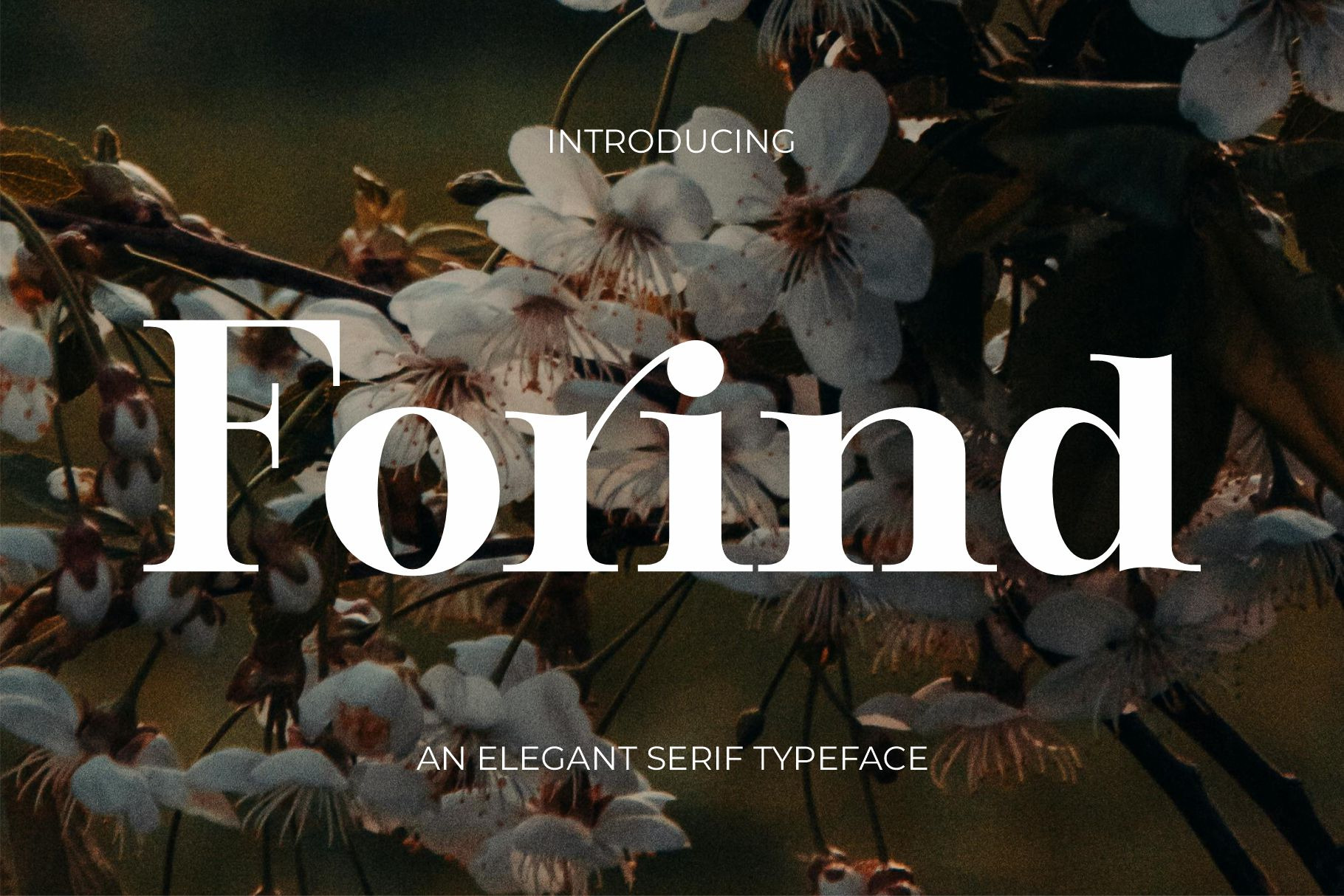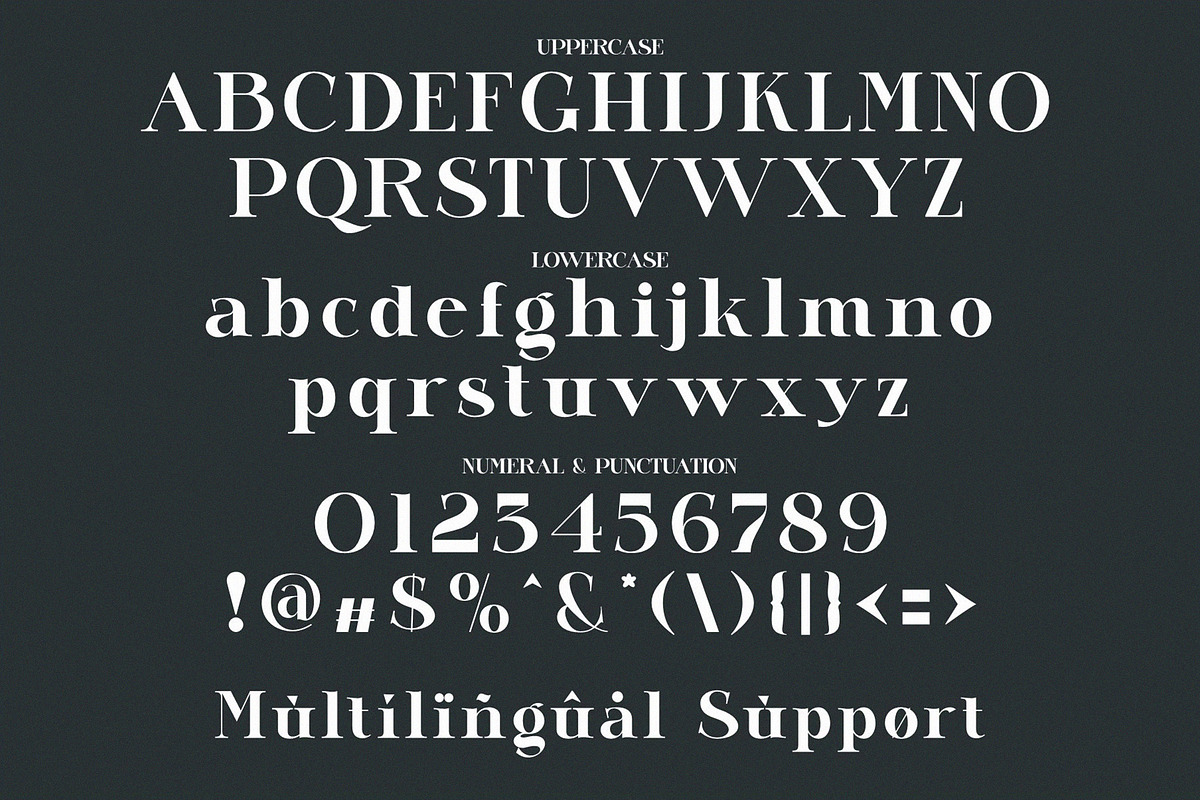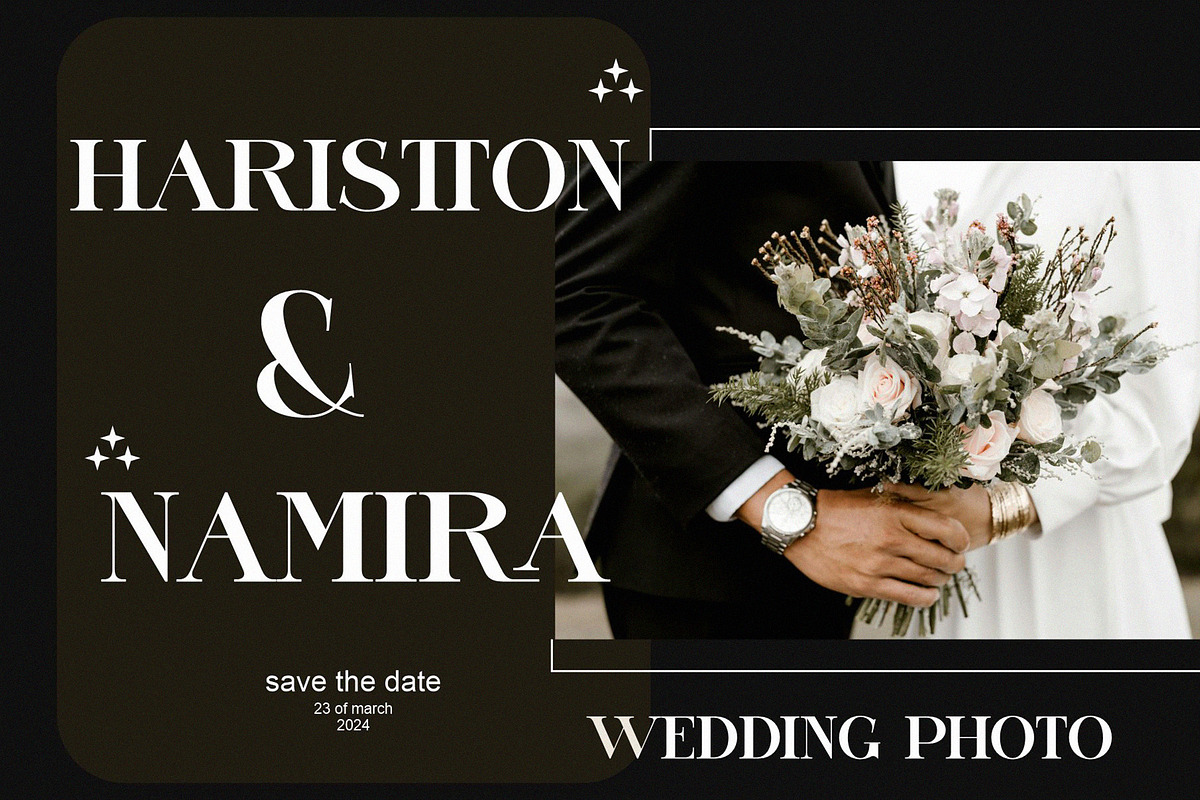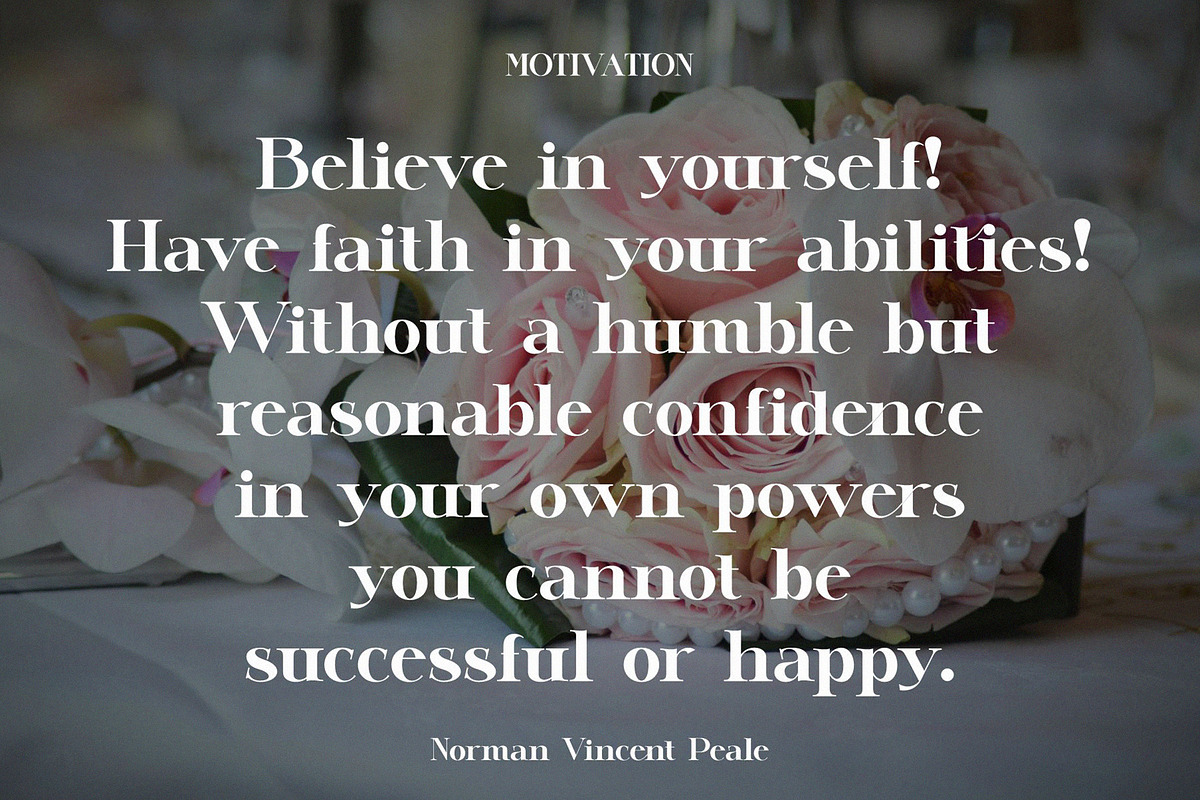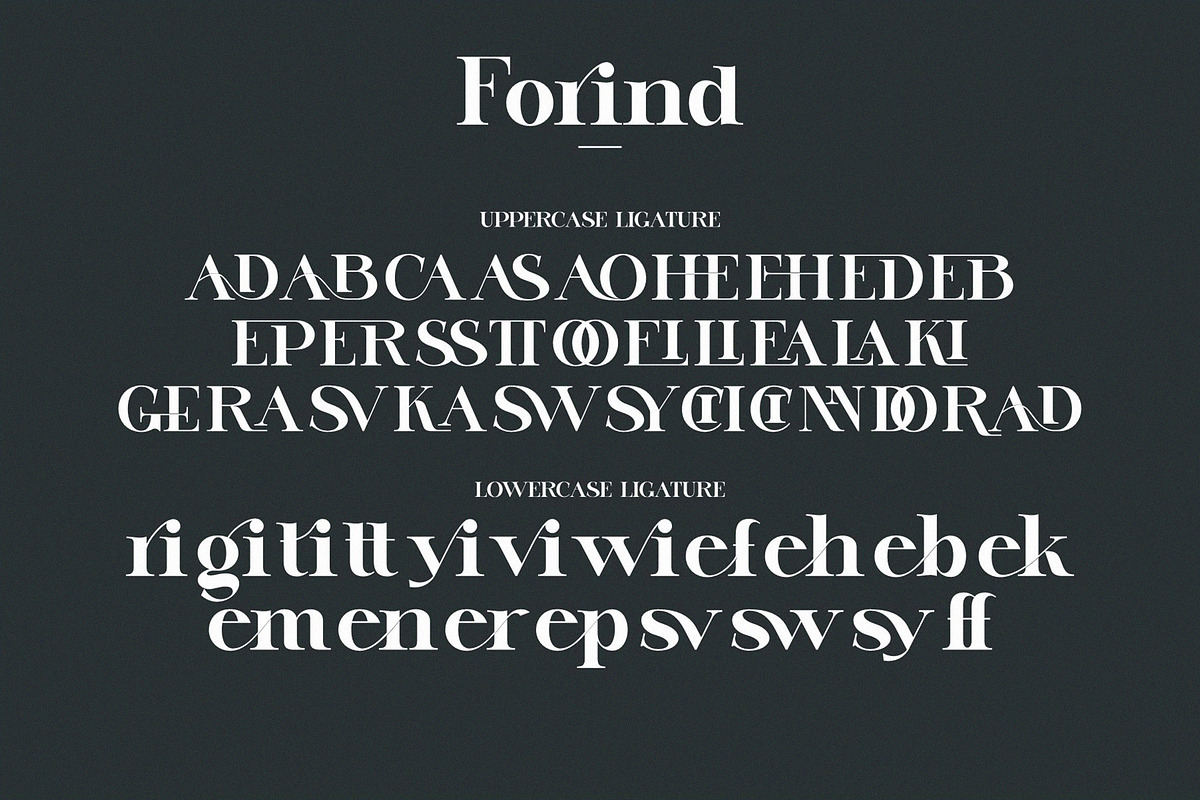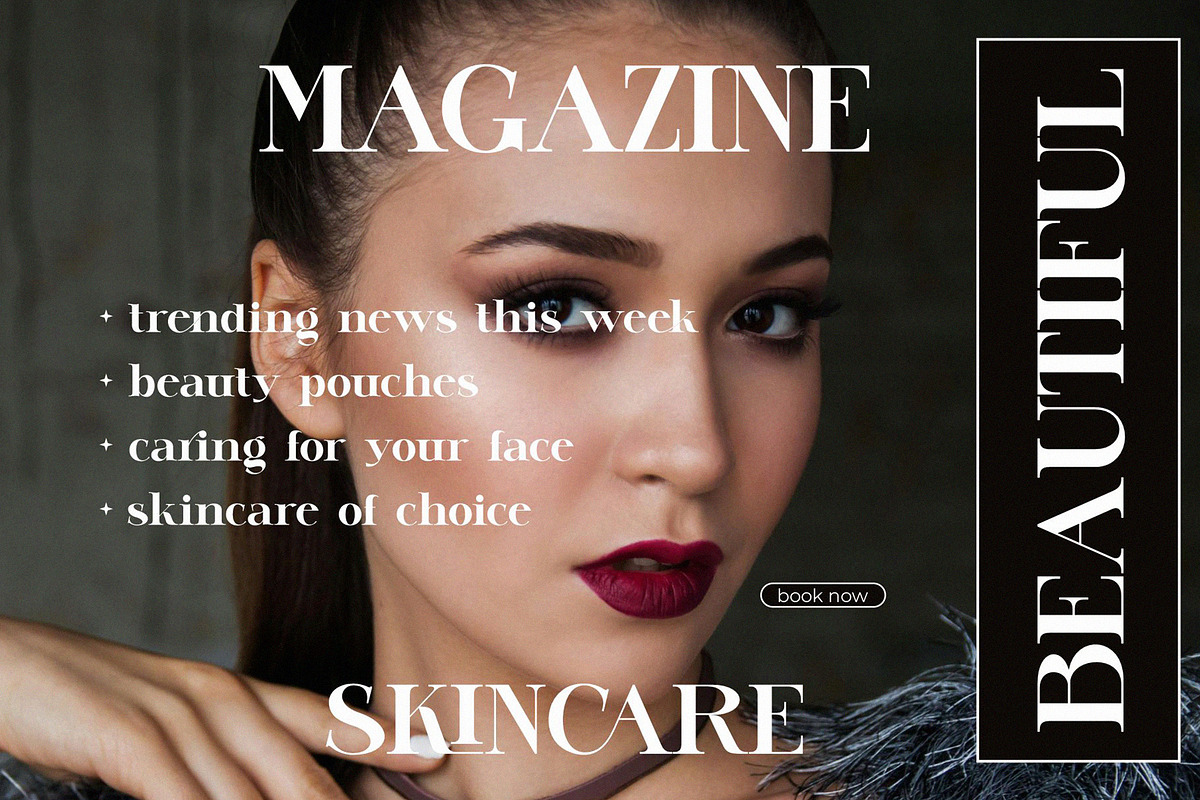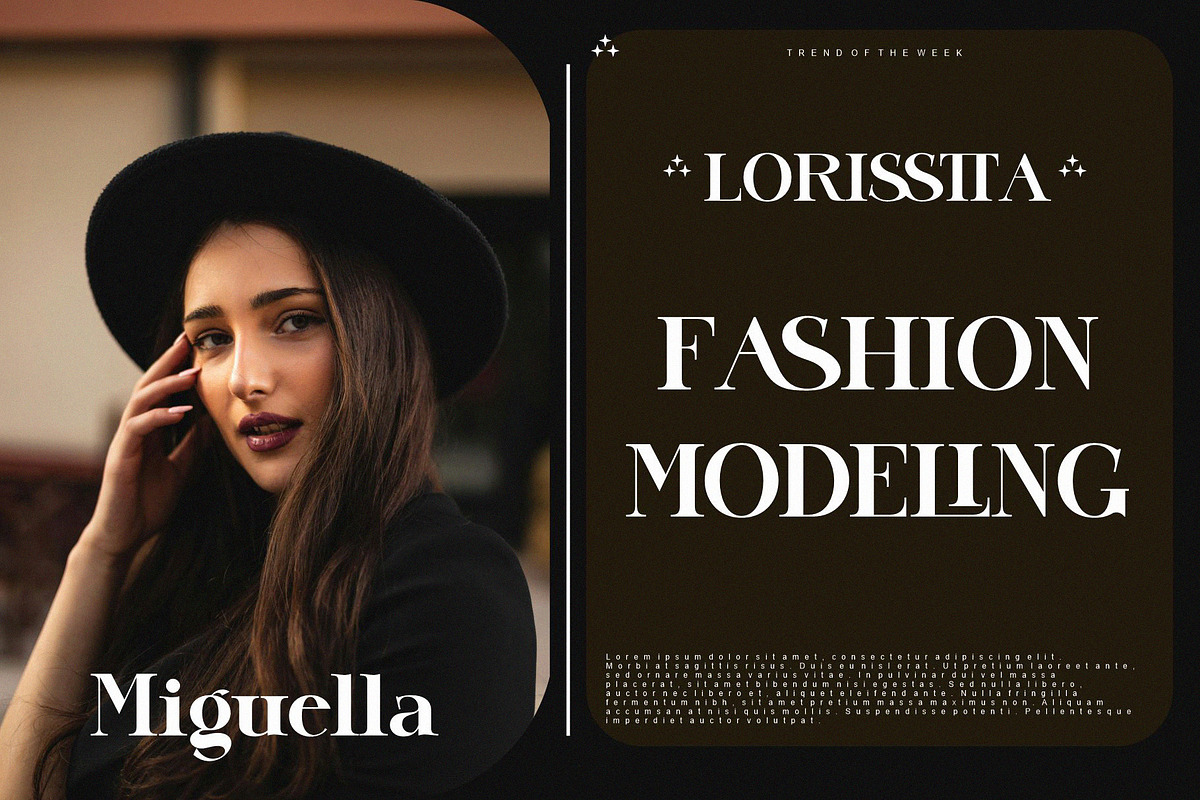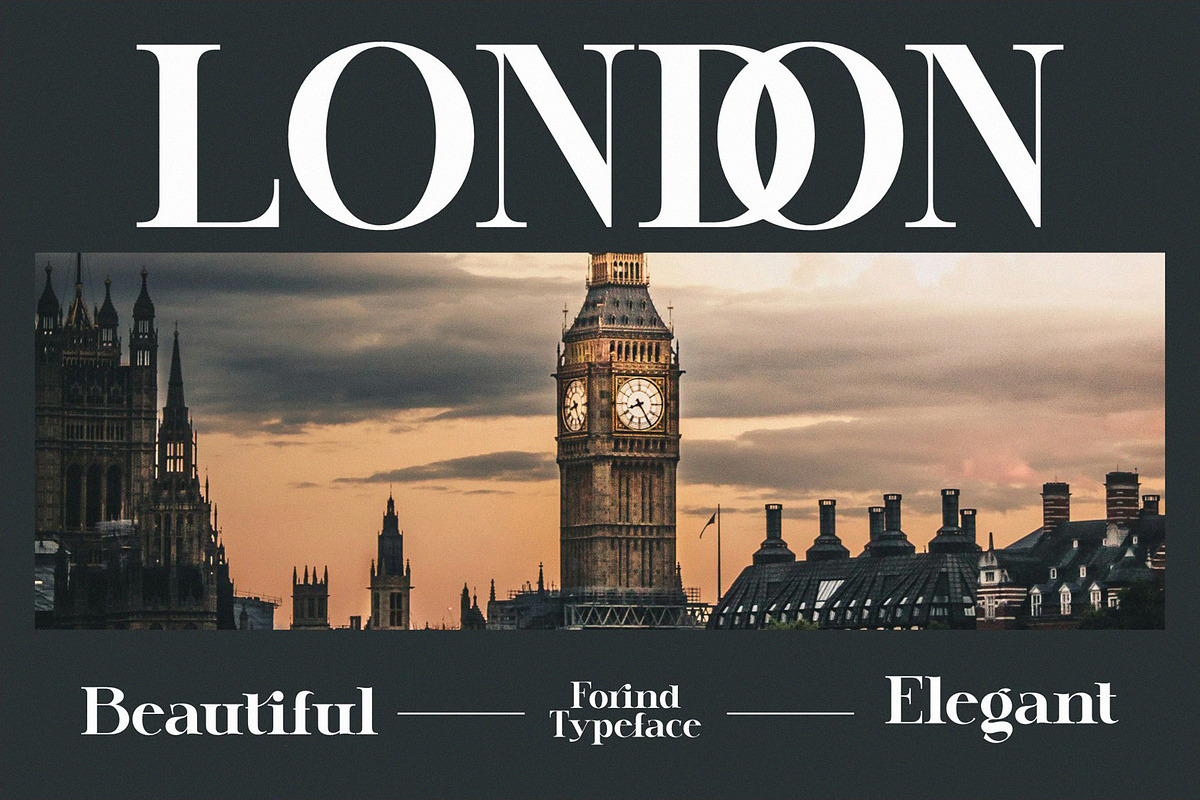
Forind An Elegant Serif Font
Forind Modern Serif Typeface inspired by the famous minimalist logo perfect for the purposes of designing templates, brochures, videos, advertising branding, logos, invitation, layout design, elegant crafting, beauty design and other